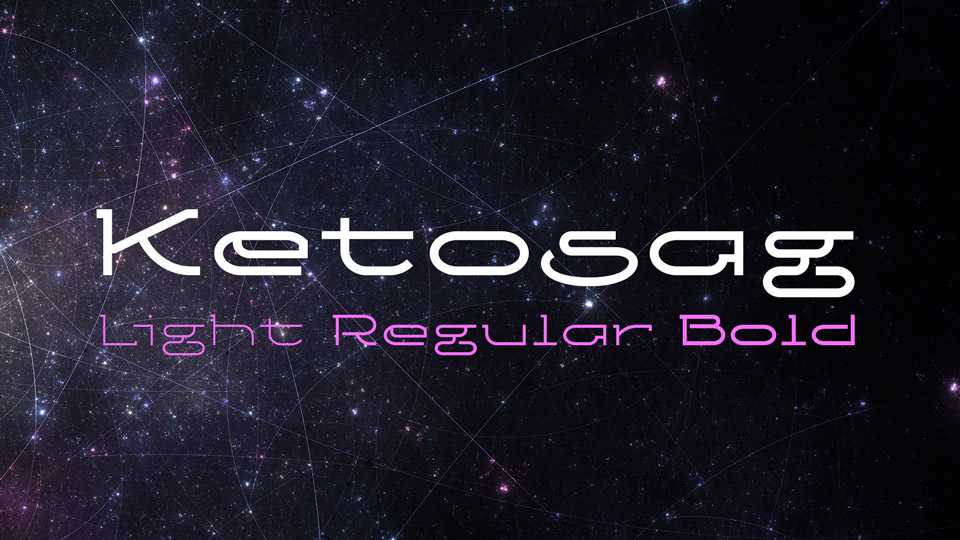
Download Ketosag typeface a geometrical, futuristic font family in six variants: Light, Regular, Bold and three Condensed versions. Ketosag font is great for modern logos and headlines, banners,
Designer: Grzegorz Luk